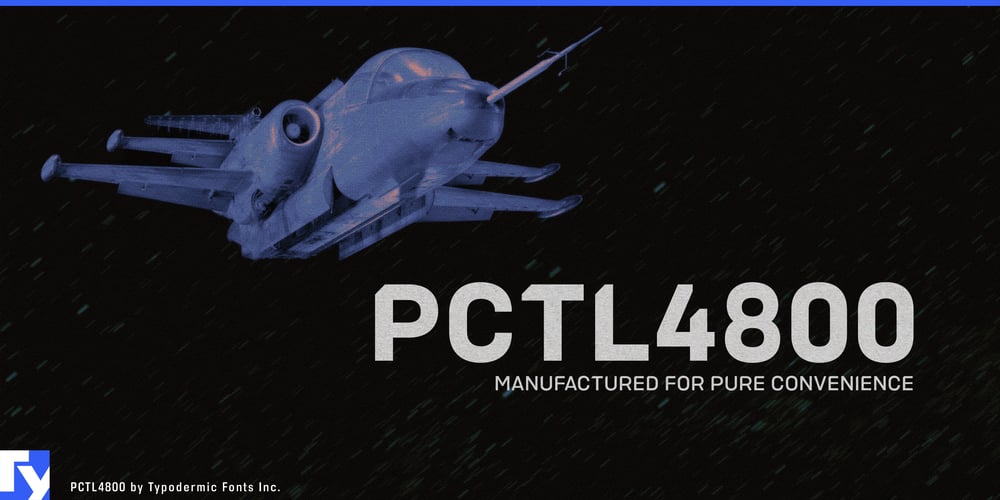
Pctl4800
Pctl4800 font
Pctl4800 Font Family was designed by Ray Larabie and published by Typodermic. Pctl4800 contains 12 styles and family package options. PCTL4800 isn’t just another sans-serif—it’s a technical marvel engineered for the discerning designer. This typeface strikes a delicate balance between modernity and timelessness, eschewing vintage nostalgia and technological gimmicks in favor of pure, principled design. Its somber sophistication speaks volumes, making it the ideal choice for projects that demand a sense of technical prowess and forward-thinking aesthetics.What truly sets PCTL4800 apart is its enigmatic corner index notch—a subtle yet intriguing design element that hints at hidden functionality. Like the orientation prompt on an SD card, this feature adds a layer of mystery and purpose to your typography, inviting viewers to lean in and explore further. For those who prefer a more understated approach, PCTL9600 offers the same technical precision without the corner notch, providing versatility for a wide range of design contexts. Both PCTL4800 and PCTL9600 come armed with six weights and their italic counterparts, offering a comprehensive toolkit for tackling any typographic challenge. From sleek interfaces to bold headlines, these typefaces adapt seamlessly to your creative vision. And when it comes to language support, PCTL4800 and PCTL9600 speak volumes—quite literally. Their extensive character sets cover most Latin-based European languages, Vietnamese, Greek, and a broad spectrum of Cyrillic-based writing systems, ensuring your message resonates across borders and cultures.Elevate your designs with the technical sophistication of PCTL4800 or PCTL9600. Add them to your arsenal today and watch as your projects take on a new dimension of clarity, purpose, and intrigue. In a world of information overload, let PCTL4800 and PCTL9600 be your beacon of typographic excellence.